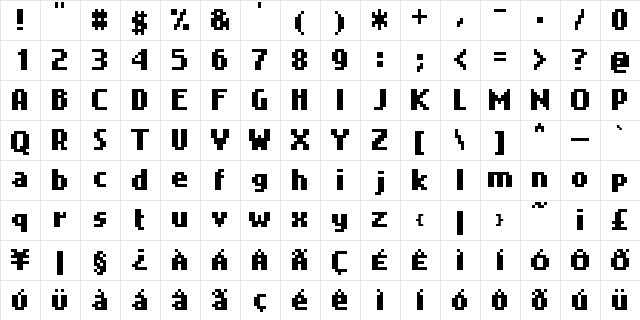
Nokia Cellphone Small
| Designer | zeh fernando |
Design Context for Nokia Cellphone Typeface
Nokia Cellphone offers clean, dependable letterforms without strong stylistic allegiance, making it a practical choice for designers who need flexibility.